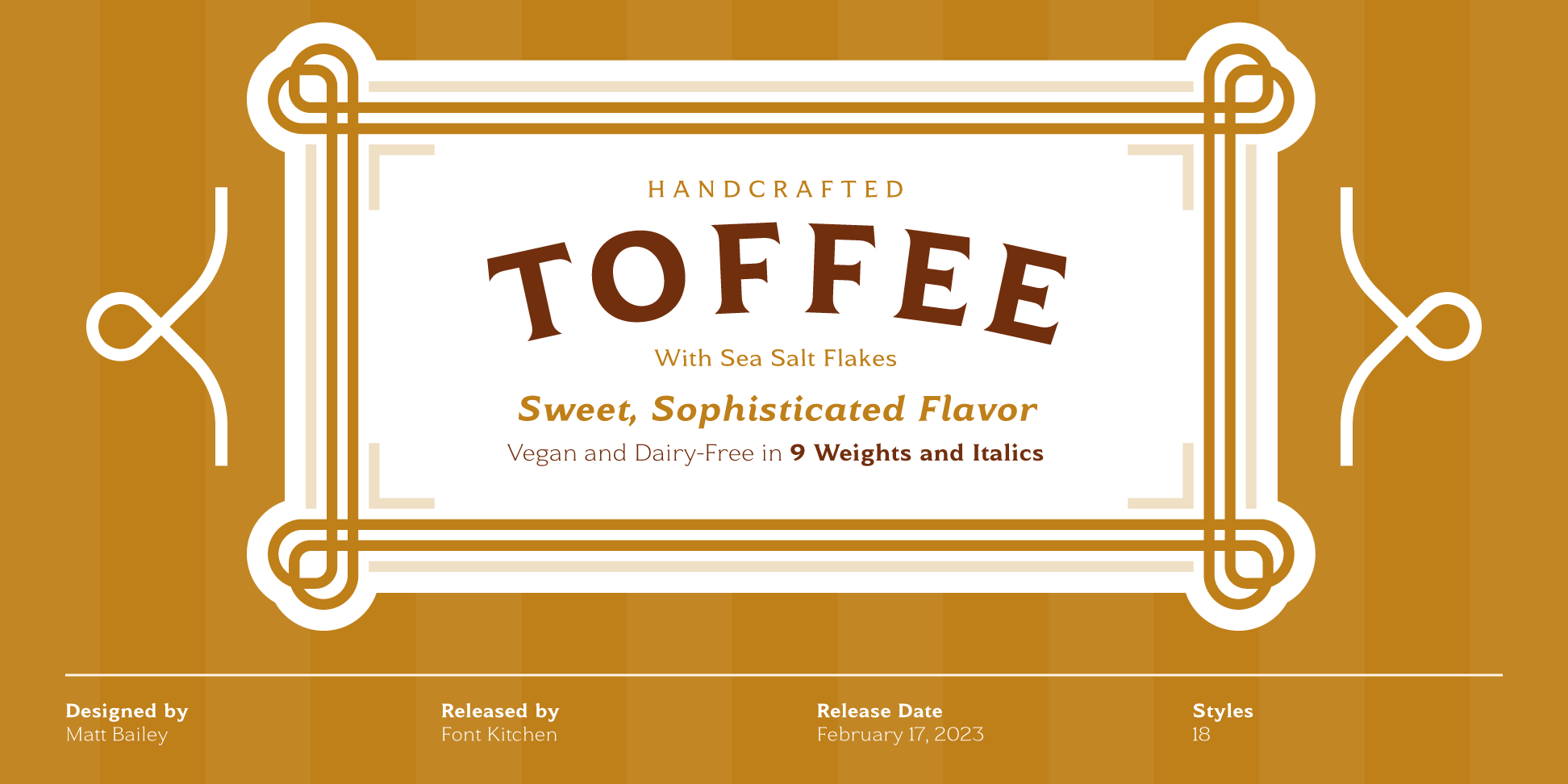
The Toffee Font is an excellent choice for designs that aim for a warm, sweet, and distinctly charming aesthetic, often evoking the comforting feel of homemade treats or cozy cafes. Imagine it playfully gracing the labels of artisanal chocolates, adding a delectable touch to bakery menus, or bringing a nostalgic, inviting feel to coffee shop branding. It's also perfectly suited for food packaging, charming greeting cards, creative blog headers, and any project where you want to convey a sense of genuine quality, warmth, and a unique, personal touch. Its often rounded forms, soft edges, and approachable appearance make it ideal for conveying sincerity and a delightful appeal.
What makes the Toffee Font so exciting is its ability to instantly infuse a design with a feeling of comfort and delicious authenticity. It frequently features subtle imperfections and a natural flow that mimics handcrafted lettering, making it feel organic and incredibly inviting. This font has a charming and distinctive personality that can instantly elevate your design, making it feel both quaint and expressively artistic. It’s designed to capture attention with its unassuming beauty, ensuring your message is not just seen, but felt with a sense of delightful authenticity.
The Toffee Font family typically might offer a few key weights to best maintain its distinctive character, possibly including stylistic alternates or unique ligatures that enhance its whimsical or food-inspired appeal. While it might not always have an extensive range of weights, its strength lies in its unique visual style and inherent expressiveness. These variations empower designers to create a truly inviting and memorable display, ensuring the Toffee Font Free Download can adapt to a wide array of projects while maintaining its signature, sweet charm.